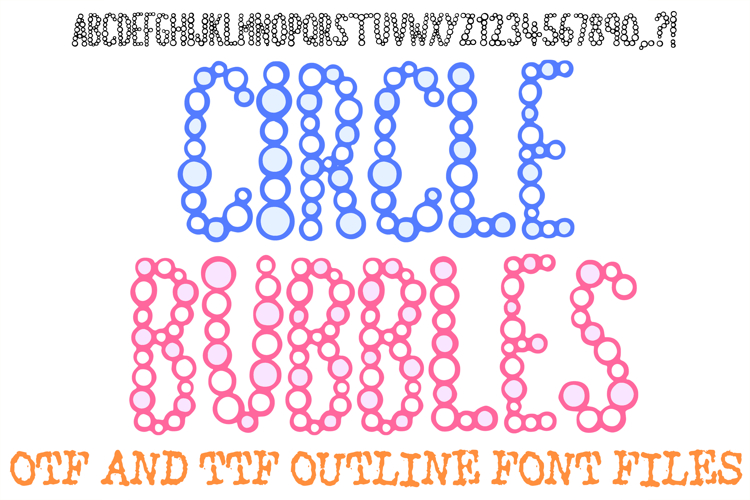
Float away into a world of whimsical, effervescent creativity with the Circle Bubble Font. This wonderfully playful display typeface features skinny, tall letterforms creatively constructed from clusters of floating round bubbles and spheres of varying sizes. The organic, clustered arrangement gives each character a light, airy, and celebratory structure that mimics fizzy soda bubbles, soothing soap suds, or delicate underwater sea foam. It is the perfect graphic option for any design requiring a fresh, lighthearted, and cheerful aesthetic.
Delivered as installable OTF and TTF font files, this detailed outline structure offers incredible flexibility for layering and customization. It serves as an exceptional resource for a designer who wants to apply colorful pastel gradients, drop individual color fills inside the independent circles, or contrast the linework against dark, solid backgrounds. The clean vector linework scales effortlessly across all creative platforms, ensuring crisp, professional results for digital media and physical print applications alike.